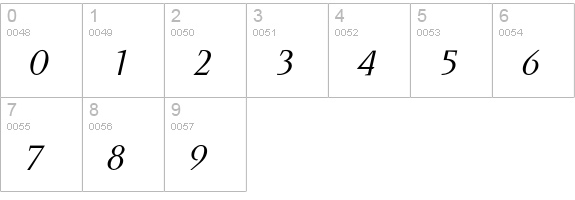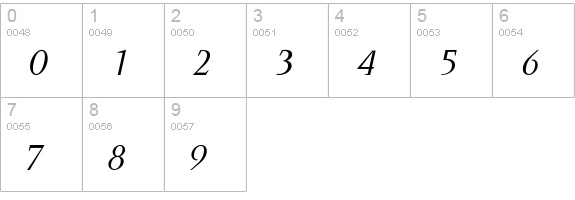
Runa Serif Std Light Italic Font Details
Runa Serif Std Light Italic is a refined, elegant, italic variant in the Runa typeface family \xE2\x80\x94 well suited to elegant body text, refined sub-headings, and luxury branding.
The Runa Serif Std Light Italic font effortlessly combines elegance and sophistication with a touch of modern flair. Its sleek and refined design makes it an ideal choice for projects that require a delicate and stylish typeface. The light italic style adds a subtle touch of emphasis and grace to any text, making it perfect for conveying a sense of sophistication and refinement. What sets this font apart is not only its aesthetic appeal but also its accessibility - it is available for free download at FontsMarket.com. This means that designers and creators can freely access and utilize this beautiful font in their projects without any cost, making it a valuable resource for those seeking high-quality typography without breaking the bank. With its timeless charm and versatile design, the Runa Serif Std Light Italic font is sure to elevate any project, whether it be a branding campaign, editorial layout, or creative endeavor. Embrace the beauty of this font and let it bring a touch of elegance to your next project, all with the convenience of being freely available for download.